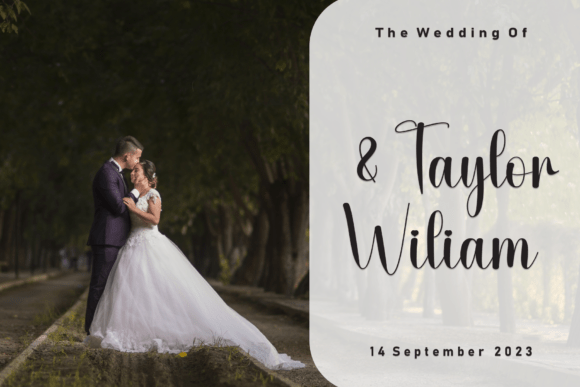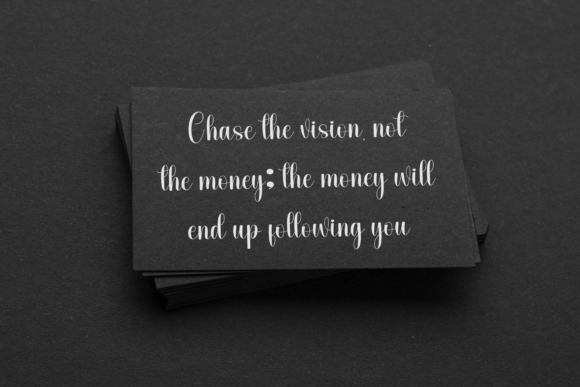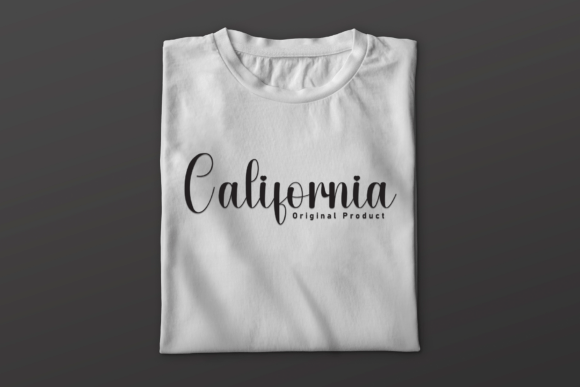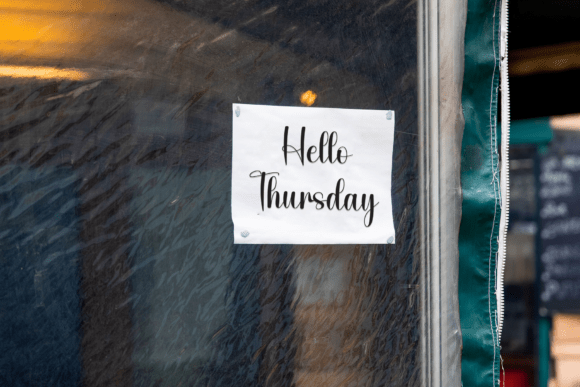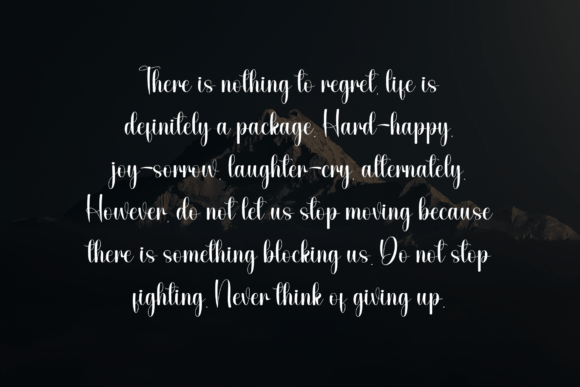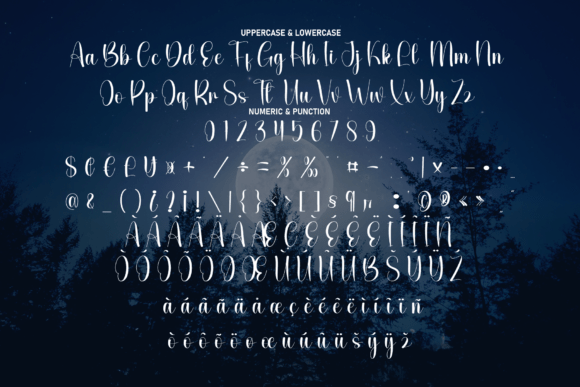
Introduction to Moonlight Disney Font
Have you ever been working on a creative project, and just as you’re about to add the final touches, you stumble upon the perfect font to elevate your design? That’s exactly what happened to many designers when they discovered the enchanting Moonlight Disney Font. This stylish script font has been making waves in the design community with its unique blend of artistic flair and contemporary elegance.
With its fluid brush strokes, dynamic curves, and expressive letterforms, the Moonlight Disney Font is the perfect design resource for those seeking to add a high-quality, sophisticated touch to their work. Whether you’re working on a logo, invitation, or social media graphic, this font is sure to deliver both visual impact and versatility. And the best part? It’s available for free download, making it an invaluable resource for designers of all levels.
Key Features of Moonlight Disney Font
- High-quality design resource for creative projects, offering a unique and magical aesthetic.
- Unique characteristics include intricate details, elegant lines, and a whimsical touch, making it perfect for Disney-inspired projects.
- Can be used for a variety of creative projects, including branding, logos, typography, and more, thanks to its high-quality design and versatility.
Honest Review: Moonlight Disney Font
I recently stumbled upon the Moonlight Disney Font, a beautiful and elegant script font that’s perfect for any creative project. The font is a high-quality design resource that’s available for free download, making it a great addition to any designer’s arsenal.
- ✨ Elegant and whimsical design that’s reminiscent of classic Disney magic
- ⚠️ Limited character set, which may make it difficult to use for longer blocks of text
- ⚠️ May not be suitable for formal or corporate designs, due to its playful and whimsical nature
Overall, I’m really impressed with the Moonlight Disney Font. It’s a great design resource for anyone looking to add a touch of magic to their creative project. Just be aware of its limitations, and use it accordingly.
Tips for Getting the Most Out of the Moonlight Disney Font
Use the font with a transparent background to create a sense of depth and dimensionality. Experiment with different font sizes and colors to create a unique look.
The Moonlight Disney Font is perfect for use in children’s book illustrations, fairy tale-inspired designs, and other creative projects that require a touch of magic and whimsy.